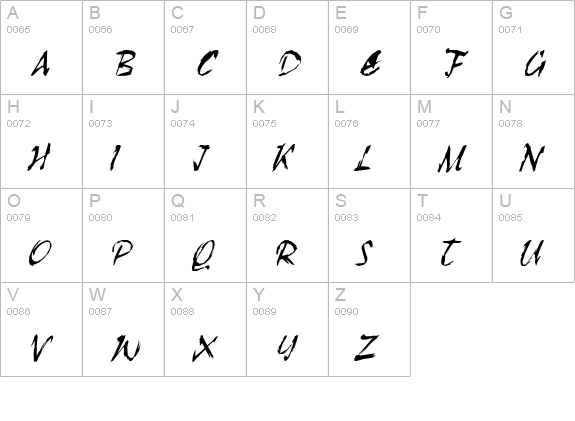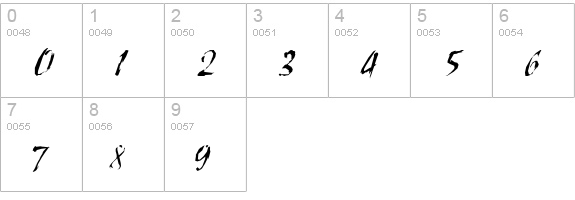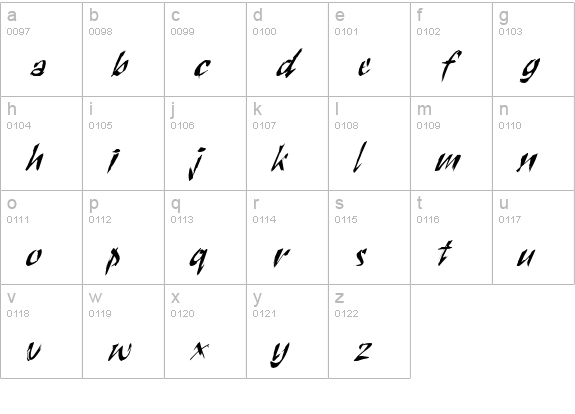
SctratchCondensed Italic Font Details
SctratchCondensed Italic is a distinctive, italic variant in the SctratchCondensed typeface family \xE2\x80\x94 well suited to design and typography projects.
Introducing ScratchCondensed Italic, a sleek and stylish font designed to add a touch of elegance to your projects. With its unique italicized design, this font captures attention and exudes a sense of sophistication. The ScratchCondensed Italic font boasts a condensed form, making it ideal for fitting more text into limited spaces without sacrificing legibility. Its slender and elongated letterforms lend a sense of modernity, making it perfect for contemporary designs. This font's versatility is showcased in its ability to effortlessly adapt to various design contexts. Whether you're designing a logo, creating a headline, or crafting a sleek and professional business card, ScratchCondensed Italic will elevate your work to new heights. But what truly sets ScratchCondensed Italic apart is its availability. Unlike many premium fonts, ScratchCondensed Italic is freely available to download at FontsMarket.com. This means that anyone, regardless of budget or resources, can access this stunning font and bring their designs to life. Download ScratchCondensed Italic today and experience the ultimate combination of style, elegance, and accessibility. Elevate your designs and capture attention with this remarkable font choice, all while enjoying the freedom of using a high-quality typeface without breaking the bank.